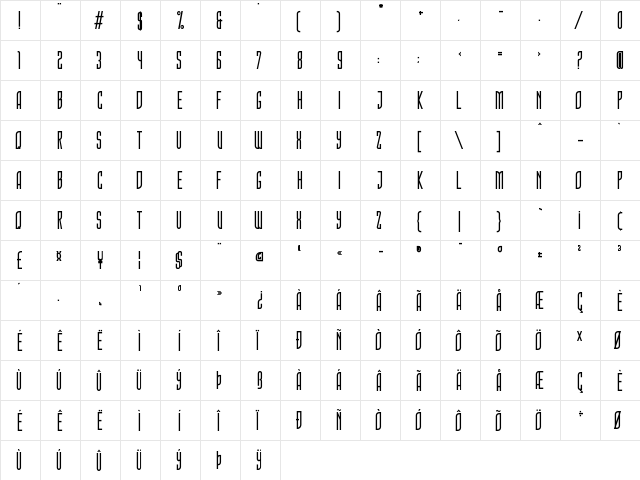
Summer Sans Regular
| Designer | Riyadh Rahman |
Design Context for Summer Sans Typeface
Summer Sans is a composed and adaptable typeface that performs quietly and consistently across a wide range of design contexts.